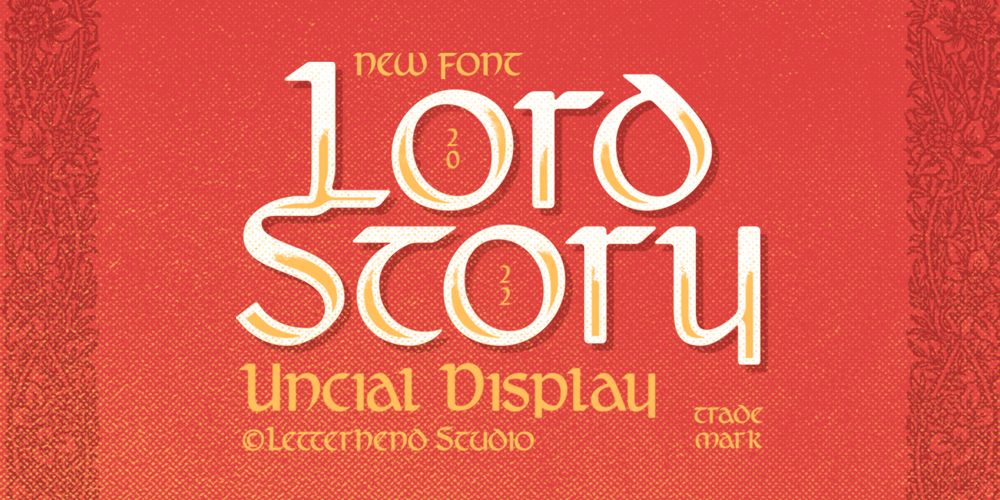
Lord Story Font Family was designed by Hendry Juanda and published by Letterhend. Lord Story contains 1 styles and family package options. Lord Story is a great display font with medieval middle age theme. This font is also suitable to be applied especially in logo, and the other various formal forms such as invitations, labels, logos, magazines, books, greeting / wedding cards, packaging, fashion, make up, stationery, novels, labels or any type of advertising purpose.Features : uppercase & lowercase numbers and punctuation multilingual alternates & ligatures PUA encoded We highly recommend using a program that supports OpenType features and Glyphs panels like many of Adobe apps and Corel Draw, so you can see and access all Glyph variations.